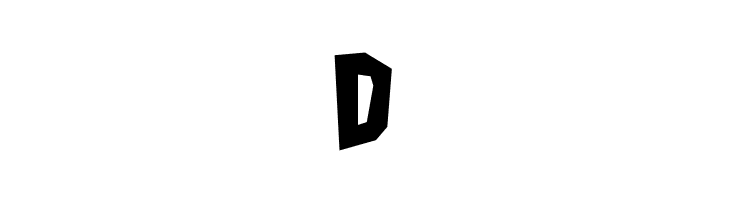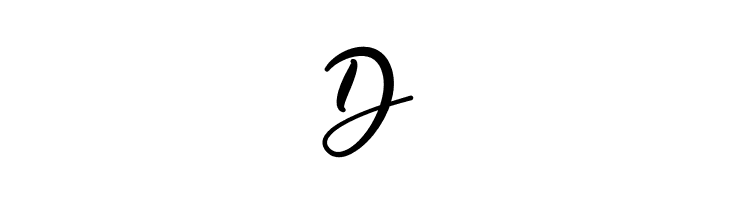
A bold, playful font with geometric and angular characters.
An elegant, flowing script font with ornate uppercase and cohesive lowercase letters.
A sophisticated script font with flowing, cursive strokes.
A dynamic and fluid script font with bold, smooth curves and a slightly slanted orientation.
A fluid, elegant script font with a natural handwritten style.
A bold, brush-style font with dynamic strokes and a sense of motion.
An elegant script font with flowing, interconnected letters and ornate flourishes.